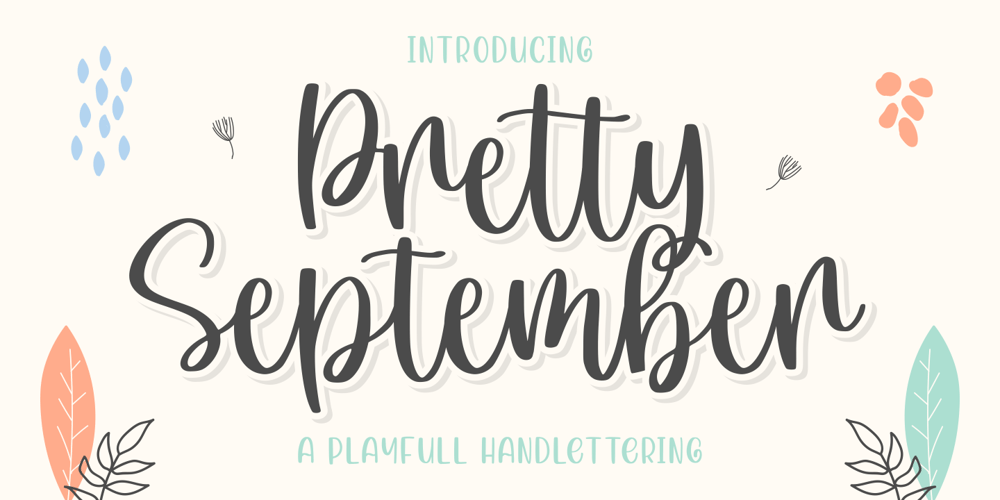
Pretty September Font Family was designed by Good Java and published by Good Java Studio. Pretty September contains 1 styles and family package options. Pretty September is the perfect font for all your fun designs. The main font file is equipped with ordinary characters (A-Z, a-z, 0-9, ligature), as well as more than 300+ glyphs to support most Latin-based languages.Everything is made with the same brush, and everything is the same size as Pretty September, so you can be sure they will work well together! It is suitable for you to use in making t-shirt design, quote, label, packaging, logo type, or long writing. Because we have compiled kerning and matrices that are tailored to your needs.